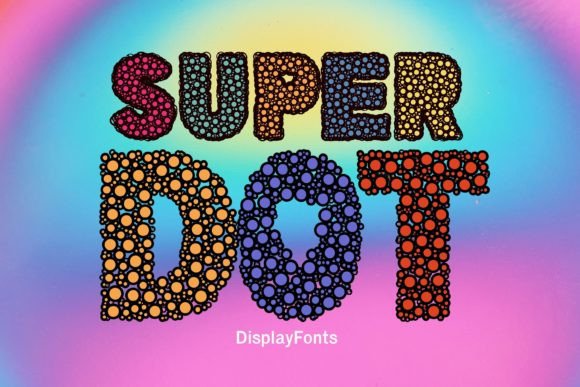
Take a kaleidoscopic journey with Super Dot Font, the most effervescent and captivating creation from the visionary PJ Fonttein. This extraordinary font family, brimming with life and vibrancy, isn't just a collection of letters and symbols; it's an explosion of colors, a symphony of dots, an invitation to let your imagination dance.
Imagine a world where every word you type, every design you create, bursts with an array of colors, where each letter is a tiny universe of polka dots, dancing and twirling in perfect harmony. Super Dot Font makes this dream a reality, transforming your digital creations into captivating works of art.
With Super Dot Font, you have a palette of possibilities at your fingertips. Design posters that pop with energy, logos that radiate individuality, packaging that demands attention, greeting cards that burst with joy, websites that dance with life, T-shirts that speak volumes without uttering a single word. The possibilities are endless, limited only by your creativity.
The black version of Super Dot Font is compatible with Cricut Design Space and other cutting machines, making it a versatile choice for crafting enthusiasts. Unleash your inner artist and create personalized gifts, home décor, and fashion accessories that reflect your unique style.
But wait, there's more! The color version of Super Dot Font opens up a whole new realm of creative opportunities. Compatible with design programs like Photoshop, Illustrator, Silhouette, and Inkscape, this font allows you to infuse your digital creations with a symphony of colors.
With Super Dot Font, you're not just downloading a font; you're embarking on a creative adventure, a journey of self-expression where colors and dots collide to create something truly remarkable. Let your imagination soar, let your creativity flow, and let Super Dot Font ignite your passion for design.